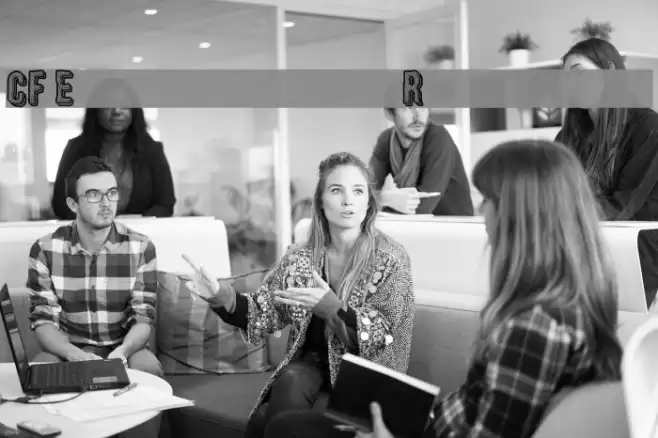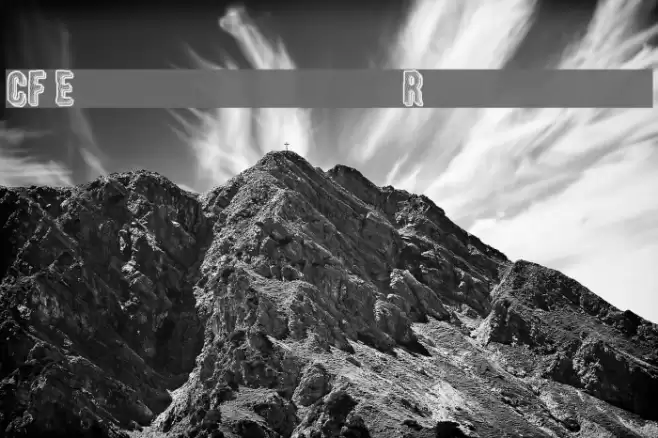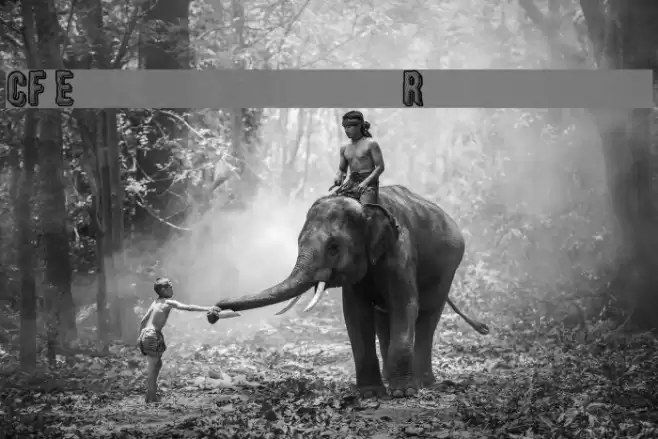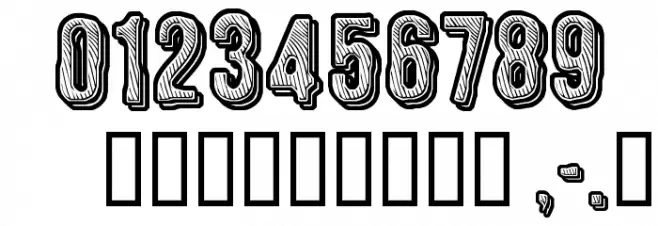
CF Engraved Regular Font
CF Engraved Regular Description
This font features a bold, engraved style with a distinct three-dimensional appearance. The characters are outlined with a thick black border, and the interior is filled with intricate line patterns that create a sense of depth and texture. The uppercase letters are uniform in height, maintaining a consistent visual weight across the alphabet. The numbers and special characters follow the same design principles, ensuring a cohesive look. This font's decorative nature makes it stand out, ideal for projects that require a strong visual impact.
A bold, engraved font with a three-dimensional, textured appearance.
- Proposed Projects: Ideal for use in posters, logos, signage, and any design that requires a striking, decorative typeface.